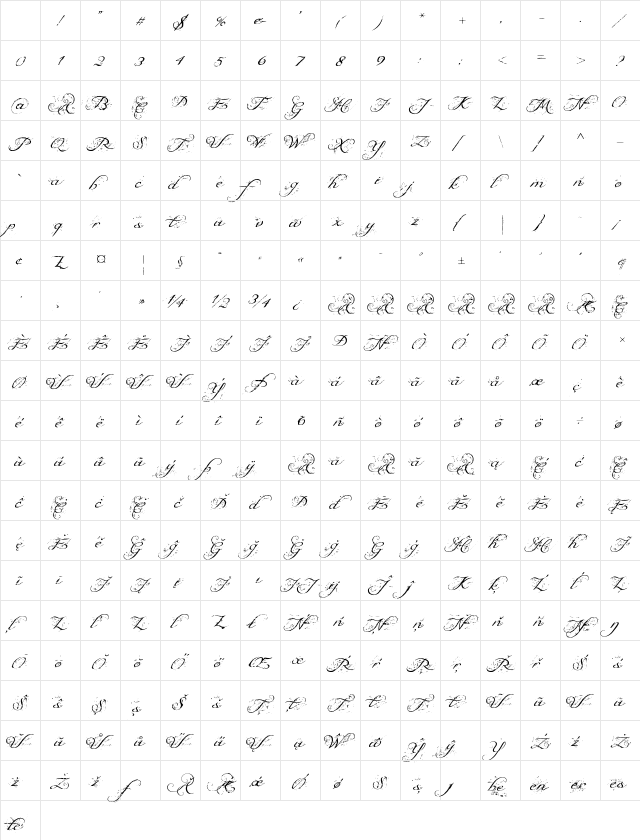
Complete Brigette Alternate One glyph index. Displaying only characters natively supported by Brigette Alternate One font.
Brigette Alternate One is a composed and adaptable typeface that performs quietly and consistently across a wide range of design contexts.